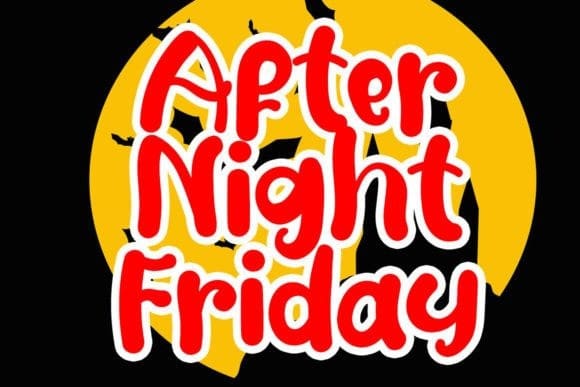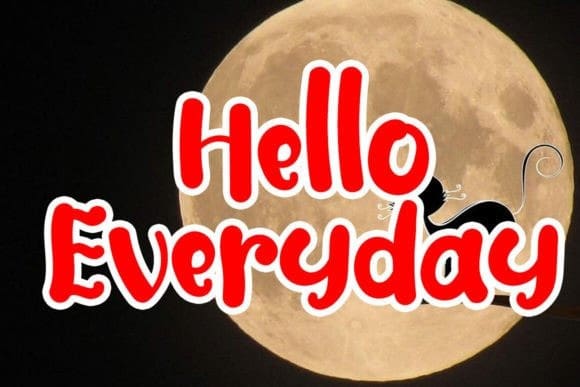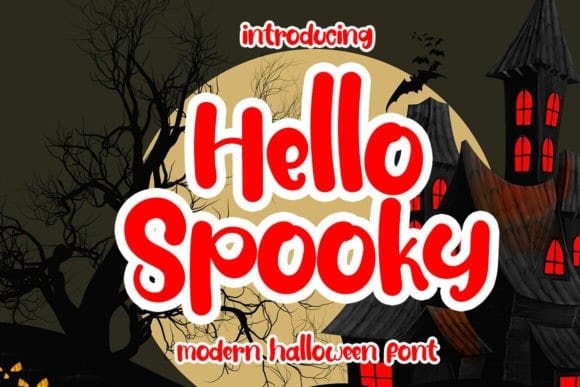
Hello Spooky Display Font
Hello Spooky Display Font is incredibly functional and versatile. With its multiple weights and styles, you can easily create a variety of design elements, from headlines and body text to logos and branding materials.